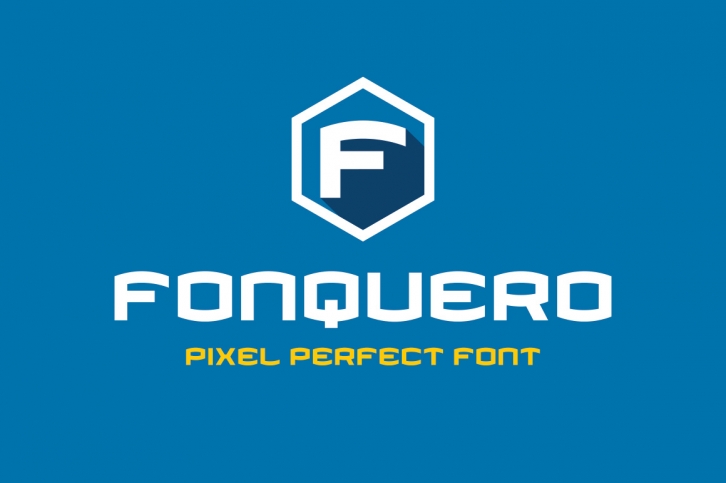
Fonquero is a great font that was designed by Locomotype Studio. Imagine the amount of combinations you can create using this font! The archive is 20.17 MB and it was released on February 6, 2017. Fonquero looks beautiful on wedding invitations, greeting cards, logos, posters, labels, t-shirt designs, logos, business cards and is perfect for use in ink or watercolor works, fashion, magazines, packaging and food menus, children's books and more!